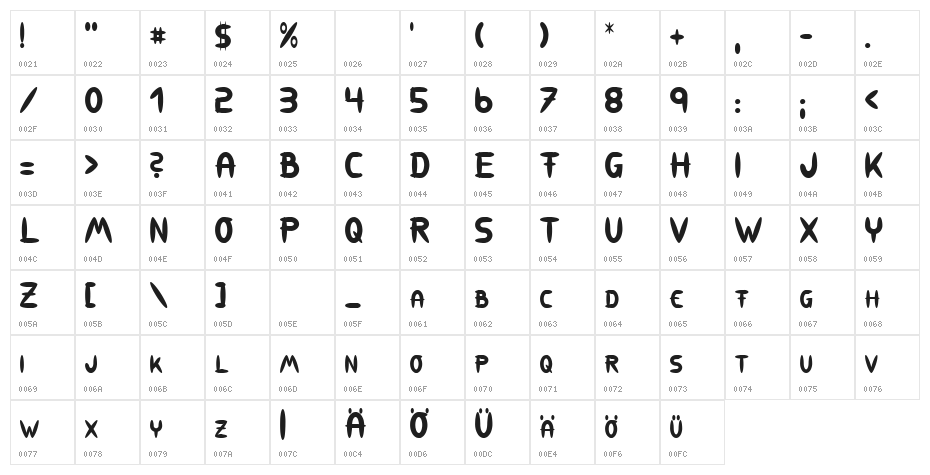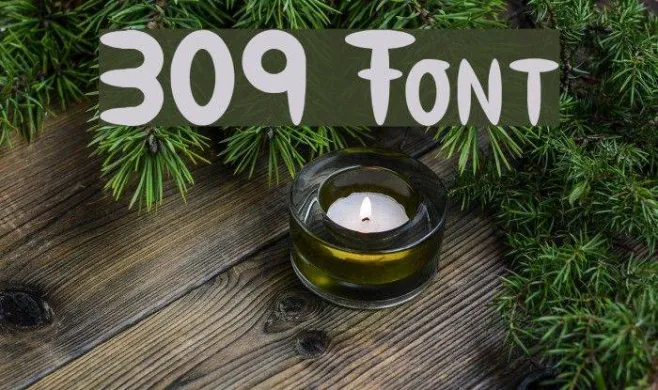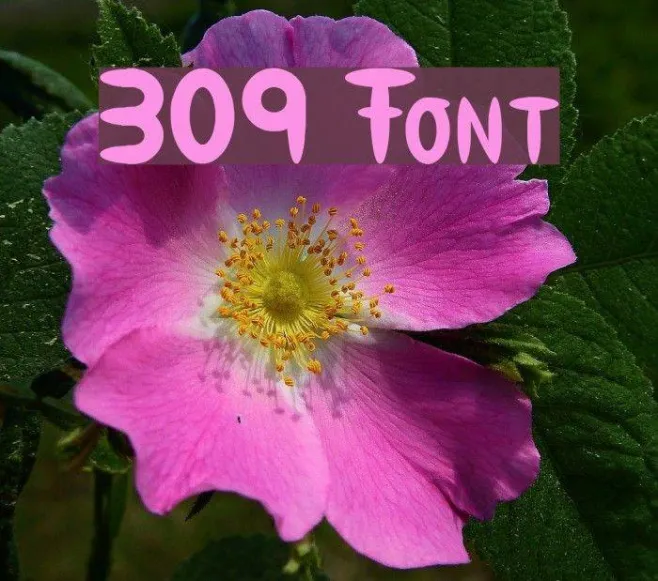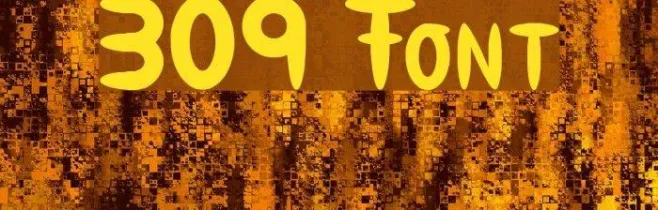
309 Font
309 Description
This font features a bold and playful style, characterized by its thick, rounded strokes and slightly irregular shapes. The letters have a hand-drawn appearance, giving them a whimsical and informal feel. The uppercase and lowercase letters maintain a consistent weight, creating a cohesive look across the alphabet. The numbers and special characters follow the same design principles, ensuring uniformity throughout. The font's unique style makes it stand out, with a lively and energetic vibe that can add personality to any project.
| Overall Style | Playful, Whimsical |
| Proposed Projects | Ideal for children's books, playful branding, posters, and creative projects that require a fun and informal touch. |